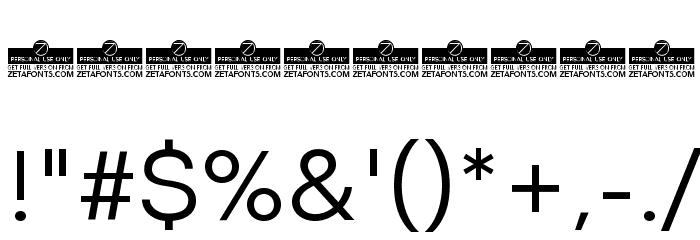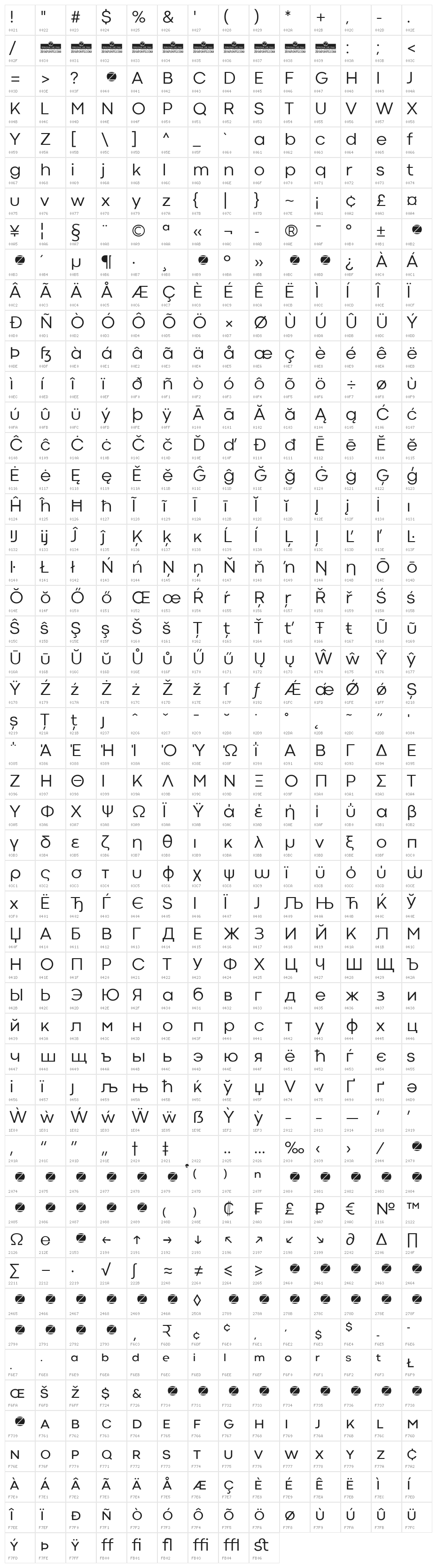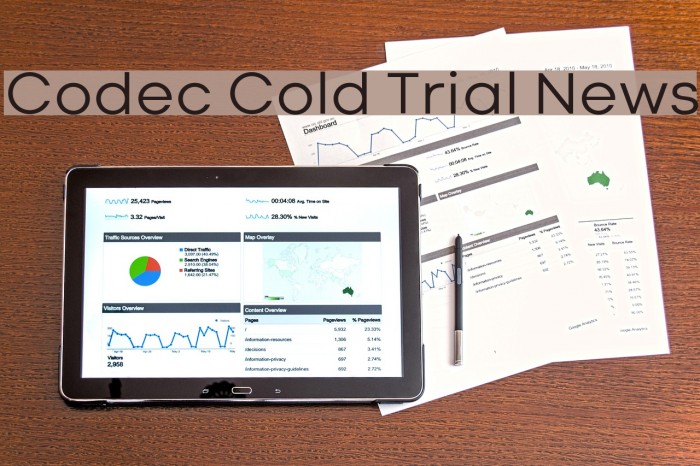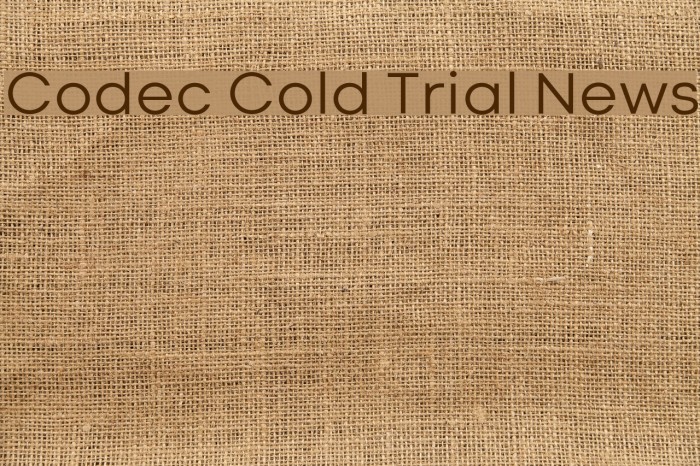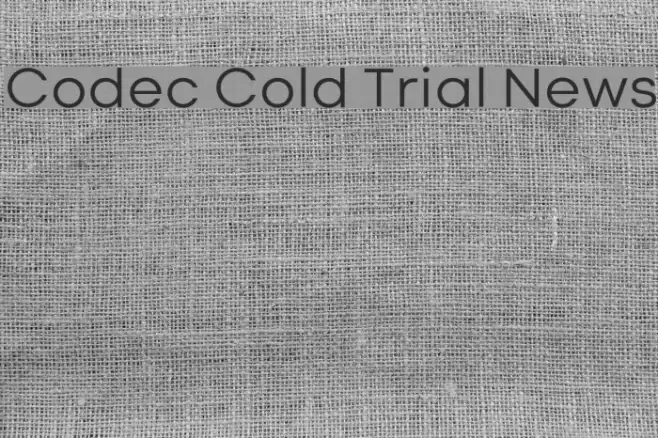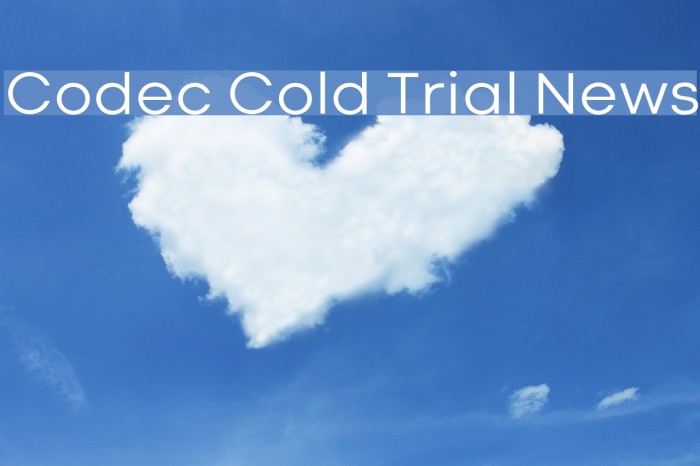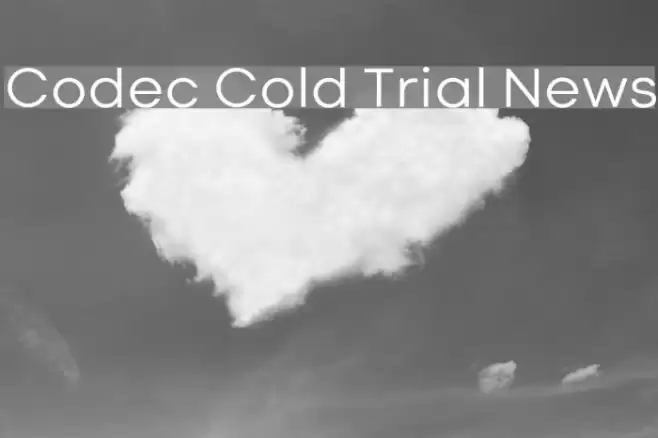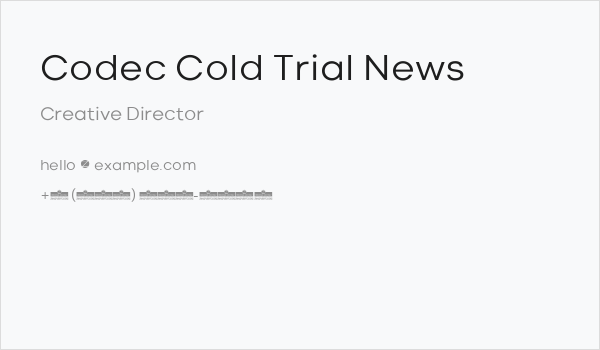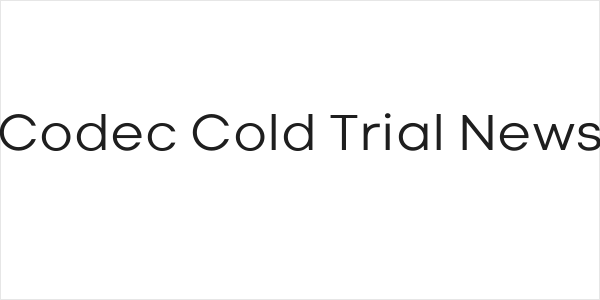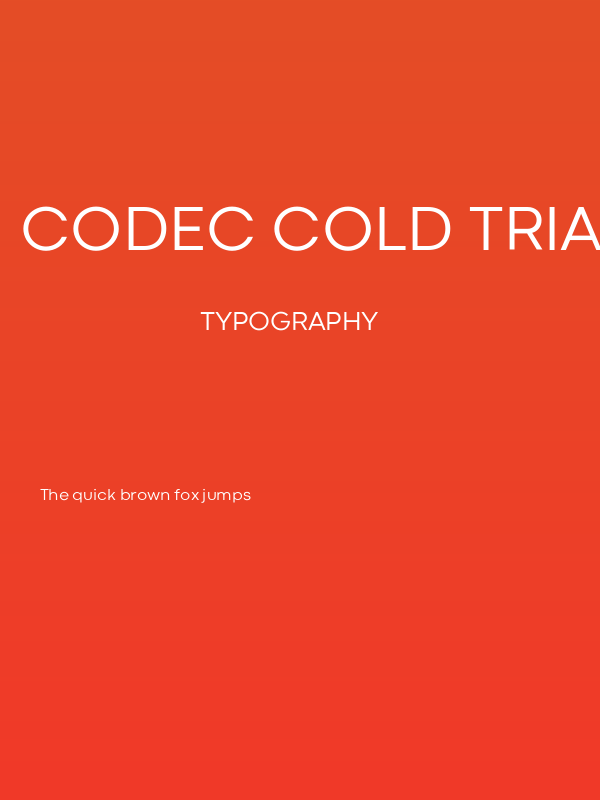
Codec Cold Trial News Font
Codec Cold Trial News Description
This font features a clean and modern sans-serif design with a geometric structure. The characters are evenly spaced, providing a balanced and harmonious appearance. The uppercase letters are bold and assertive, while the lowercase letters maintain a consistent style with rounded edges that add a touch of softness. The numerals are clear and legible, making them suitable for various applications. Special characters are well-defined and integrate seamlessly with the overall design. This font is versatile, offering a contemporary look that can enhance both digital and print media.
Use CaseHeadlines, Body text, Logos
Proposed ProjectsIdeal for branding, web design, advertising, and editorial projects.